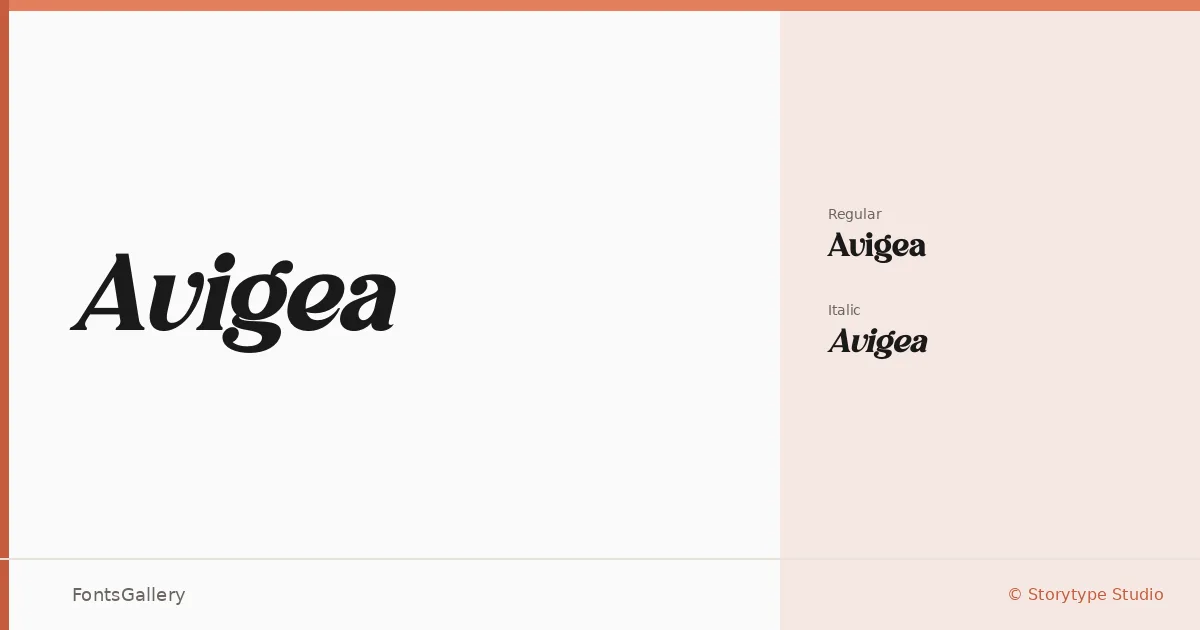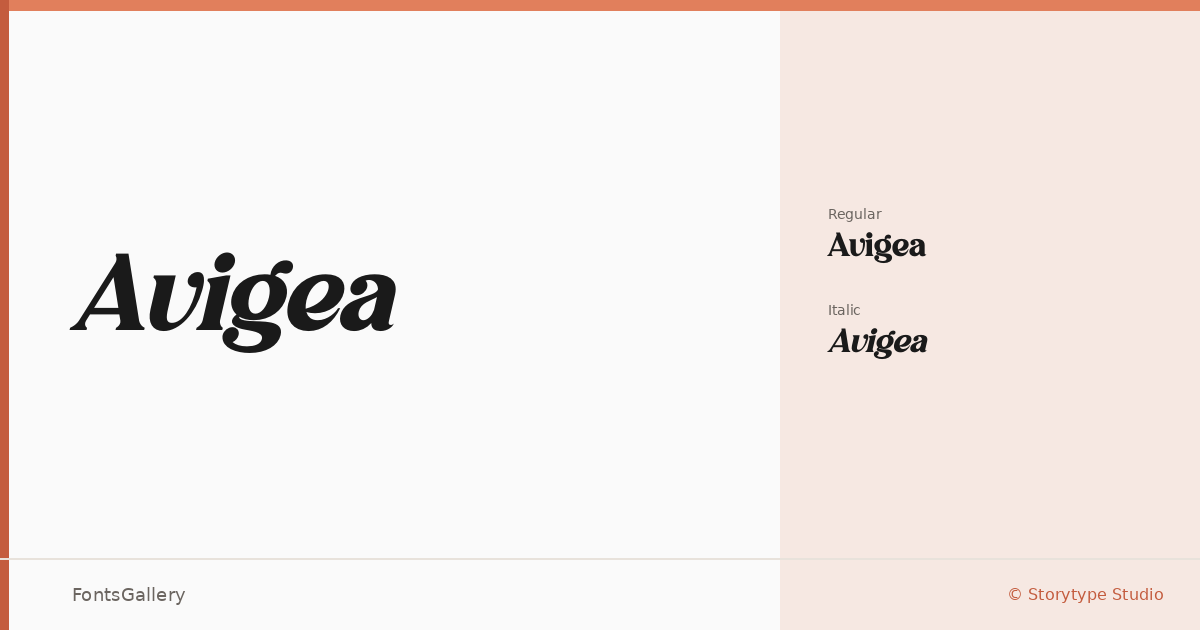
About Avigea Font
There is a quiet confidence in the way these serifs sit on the baseline — composed, unhurried, with the kind of refined weight distribution you associate with editorial and luxury work. Avigea comes from Heru Utama Putra at Storytype Studio, and it arrives in two cuts: a Roman Regular and a companion Italic, both delivered in TTF, OTF, WOFF, and WOFF2 formats.
The family reads as a modern classical serif — drawing on the elegance and structure of traditional letterpress proportions while keeping its curves clean enough for contemporary applications. The Italic doesn't merely slant the Roman; it carries its own personality, with the kind of calligraphic lean that gives a headline genuine movement. Together, the two styles offer enough contrast to handle display hierarchies without needing a full extended range.
This is a face that earns its keep on book covers, masthead logotypes, magazine headlines, and brand identities where a classic-luxury register matters. Its Latin coverage keeps it well suited to Western European editorial and packaging work. For pairings, it holds its own alongside neutrals like Helvetica, Josefin Sans, and Asap, and sits comfortably with more characterful display faces such as Armelie and Kactigona when layered compositions call for it.